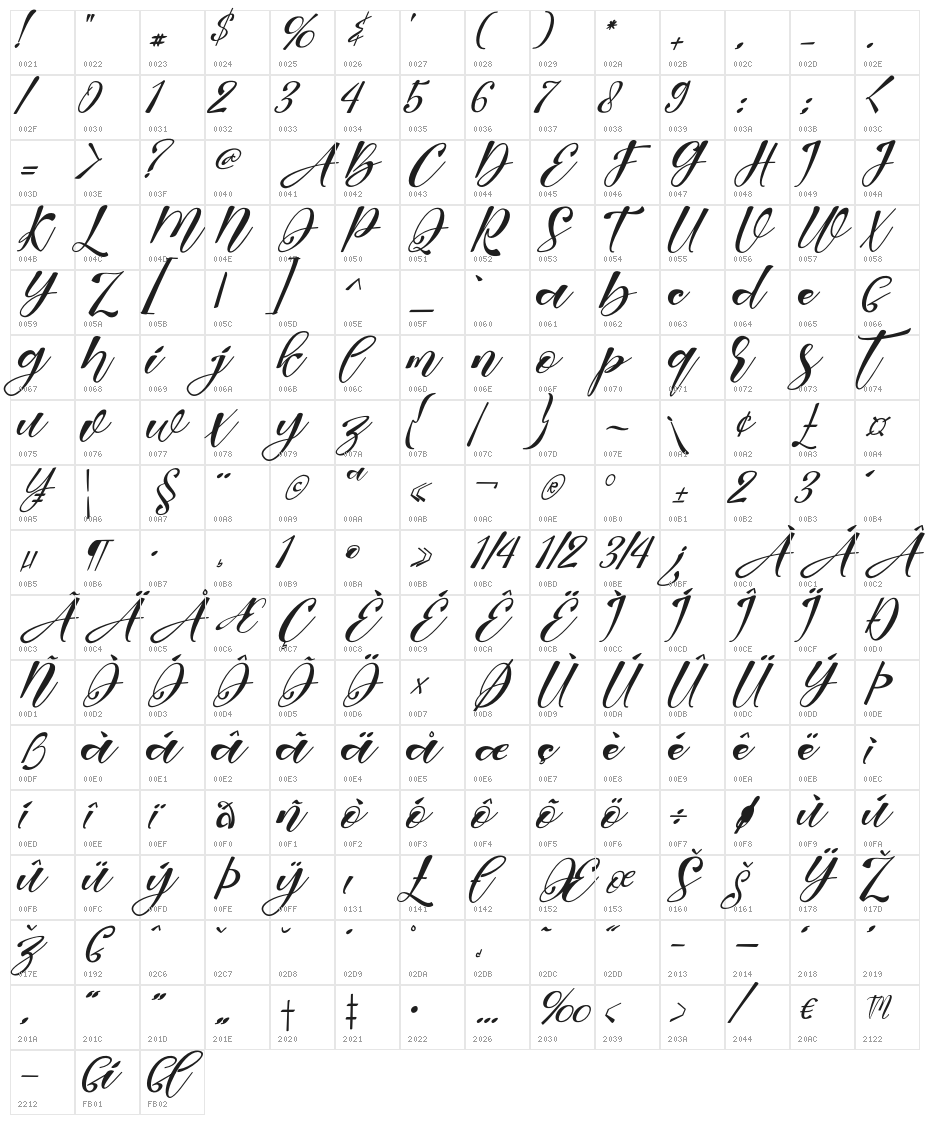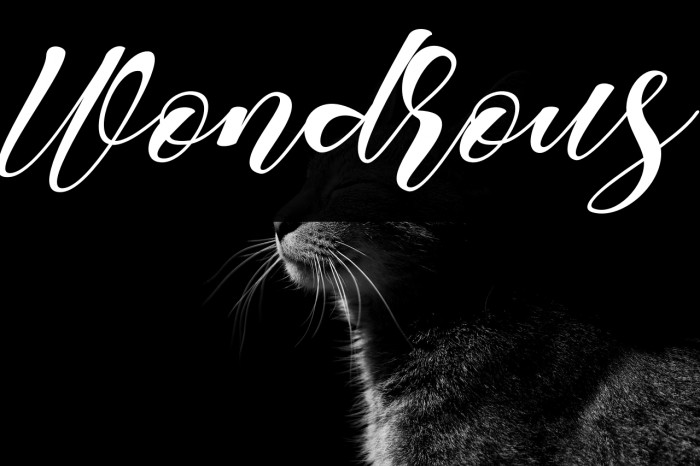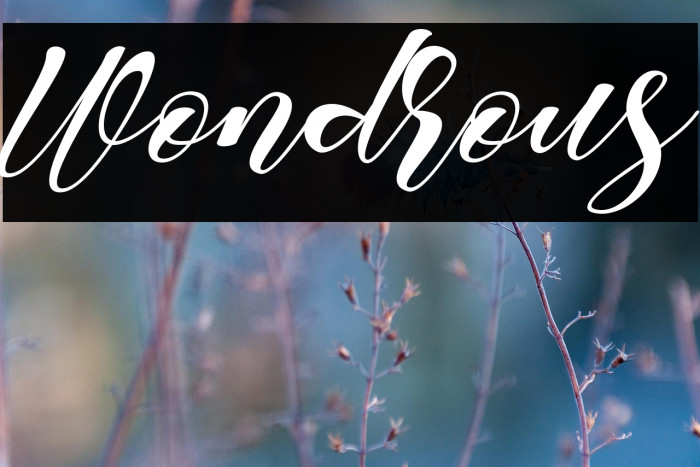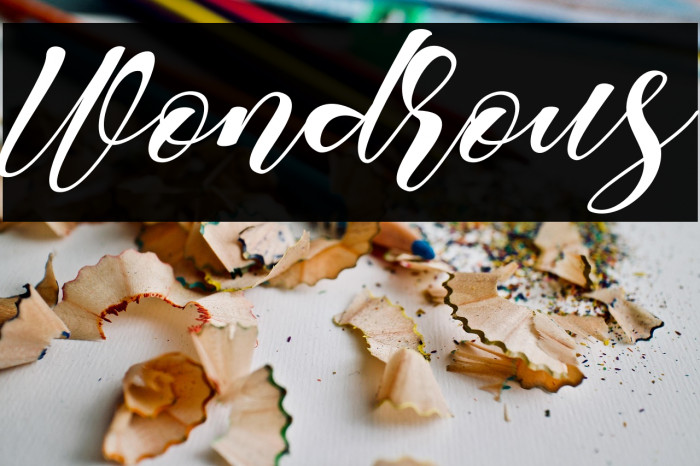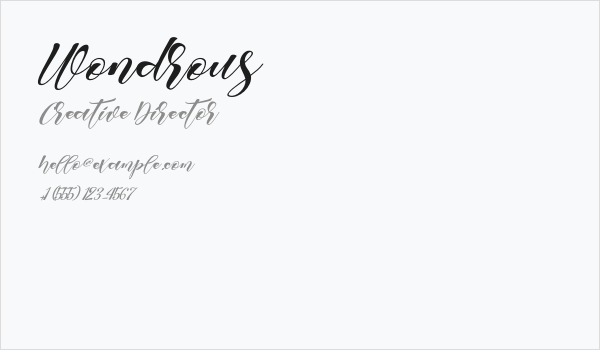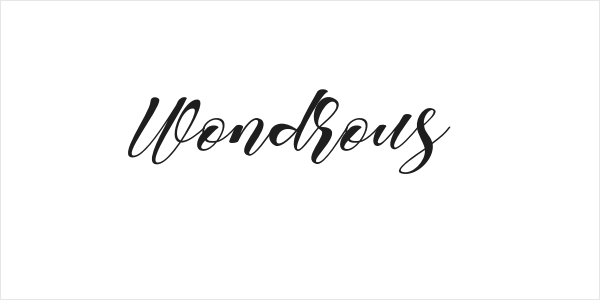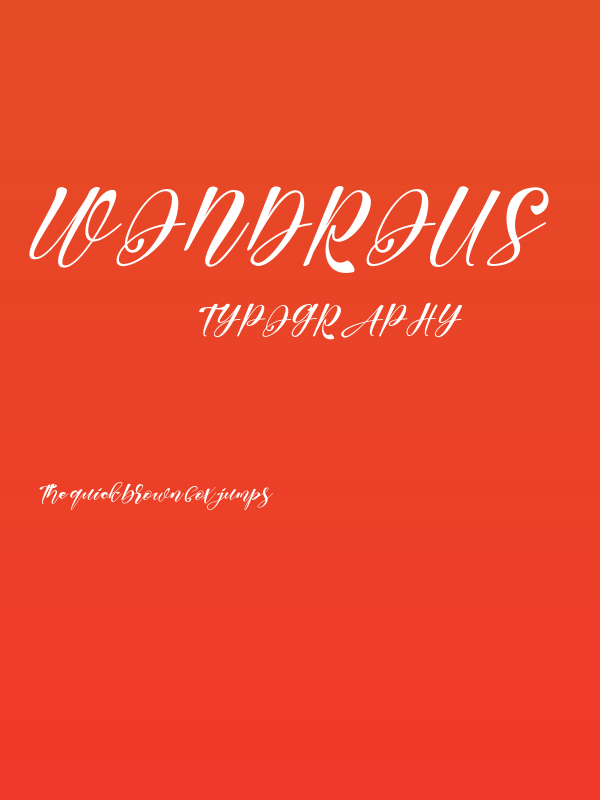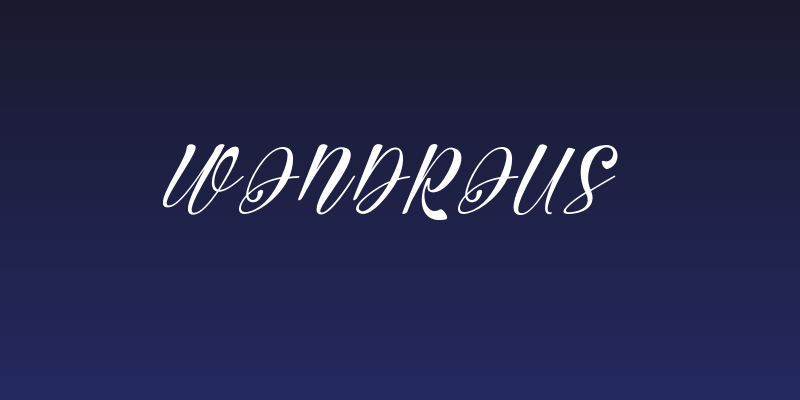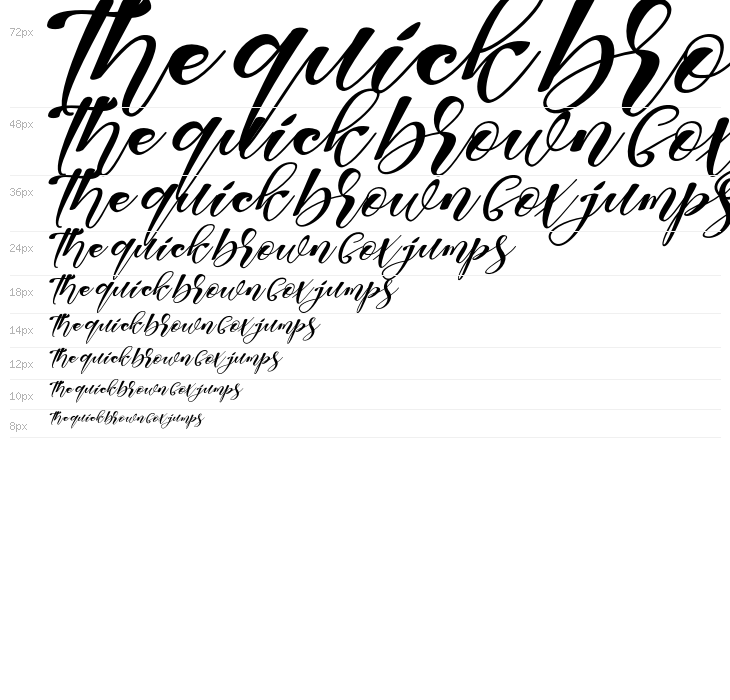
Wondrous Font
Wondrous Description
This elegant script font features flowing, cursive letters with a modern flair. The uppercase characters are bold and sweeping, with intricate loops and flourishes that add a touch of sophistication. The lowercase letters maintain a consistent style, with smooth connections between each character, creating a seamless and fluid appearance. The numerals are equally stylish, with a slight slant that complements the overall design. Special characters are thoughtfully integrated, maintaining the font's cohesive aesthetic. This font exudes a sense of elegance and grace, making it ideal for projects that require a touch of class and refinement.
| Proposed Projects | Ideal for wedding invitations, luxury branding, elegant logos, and high-end product packaging. |